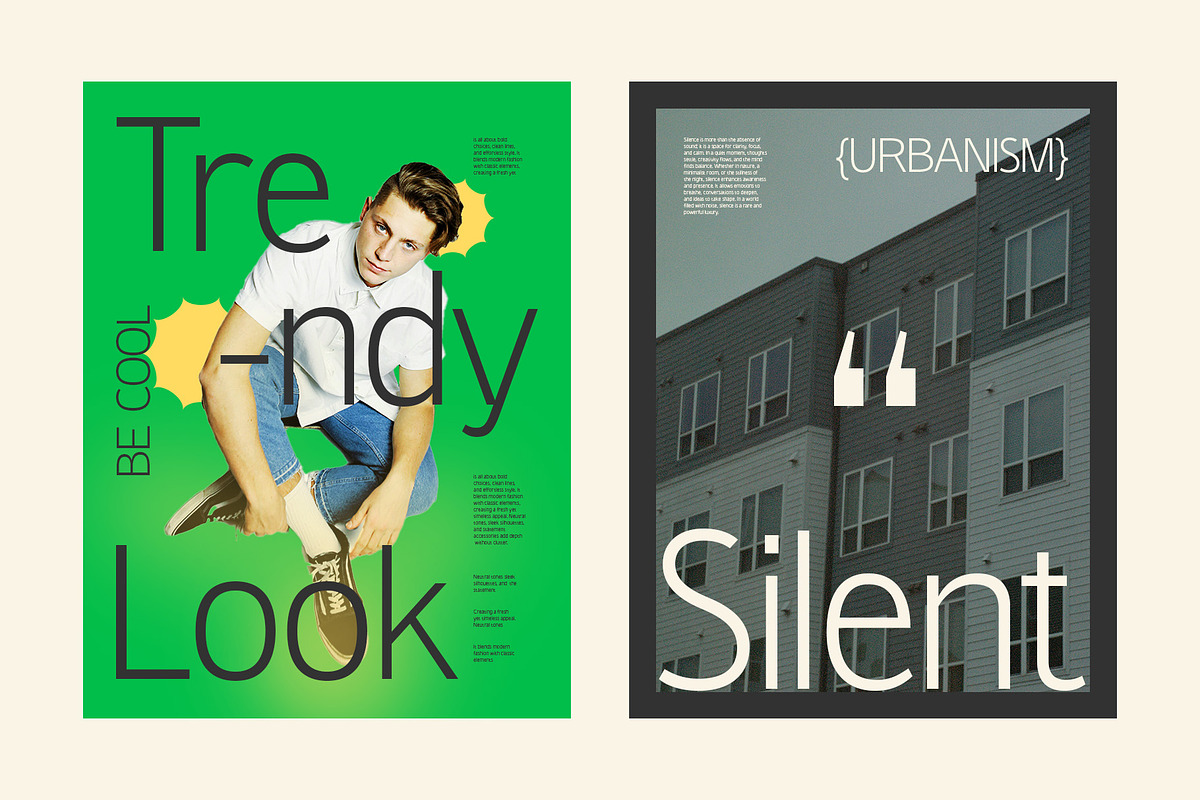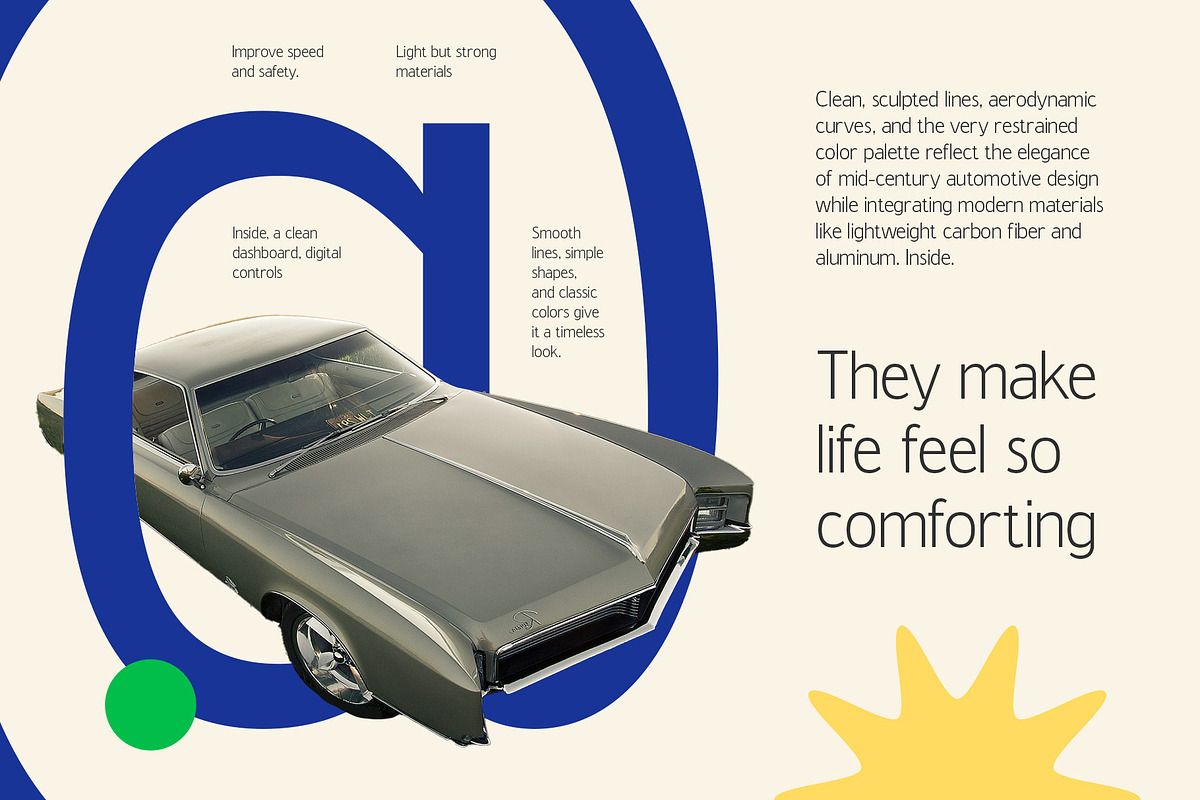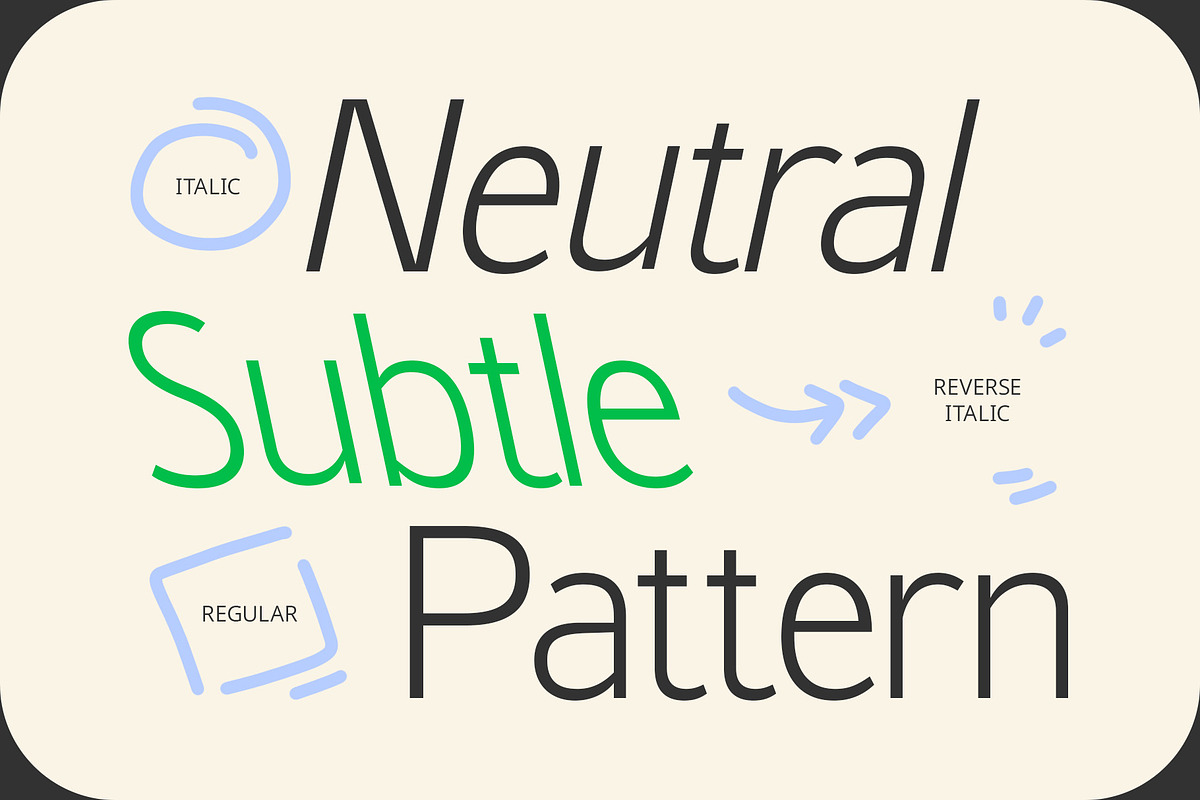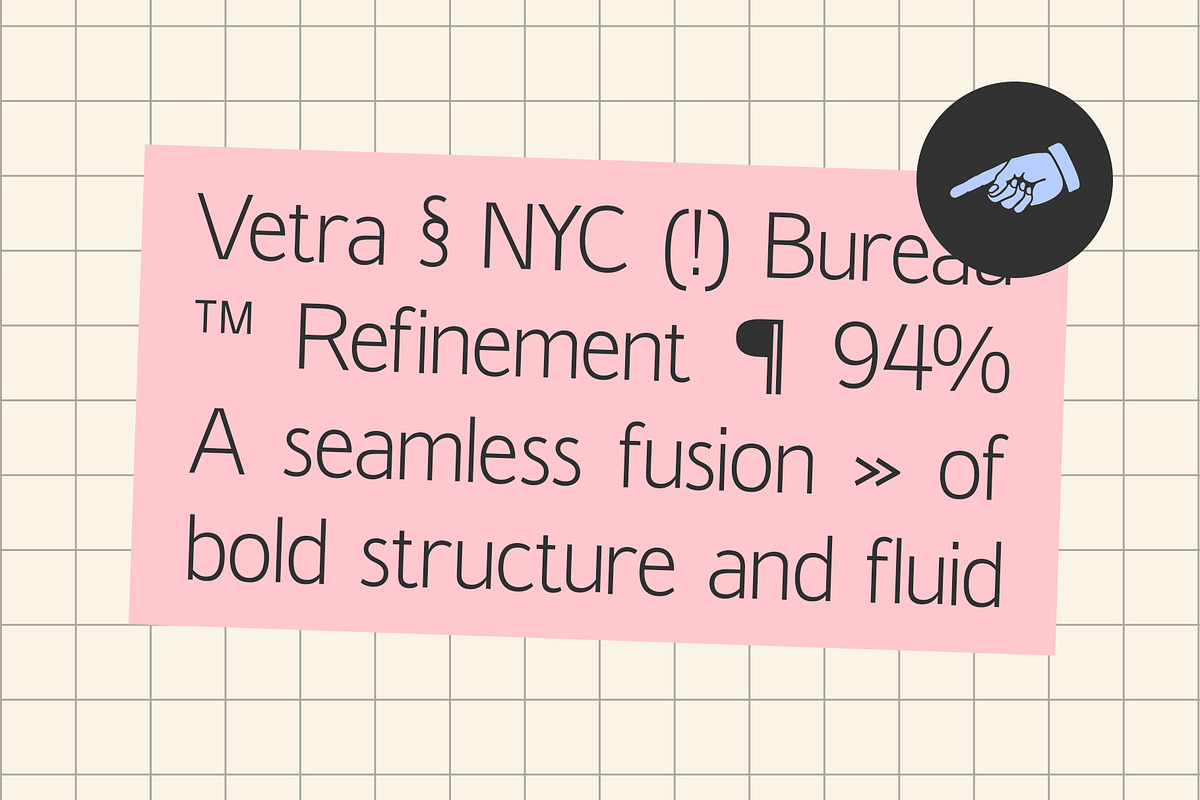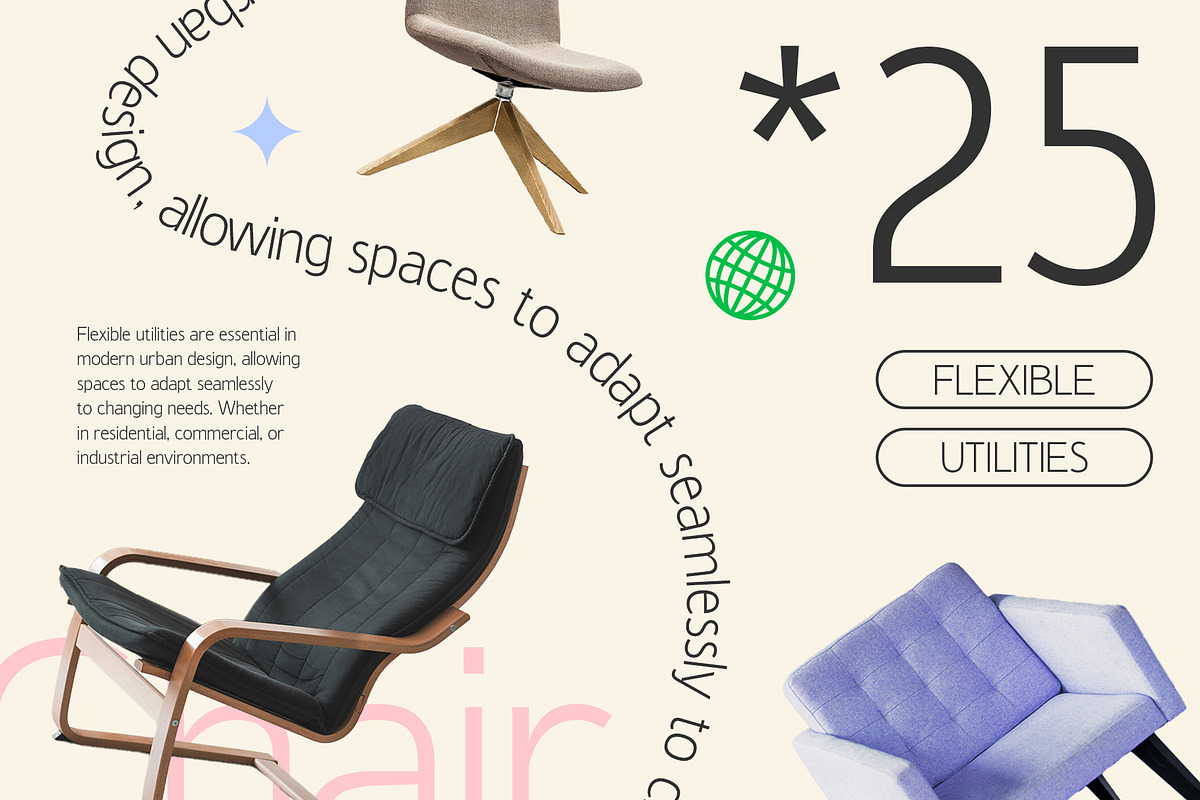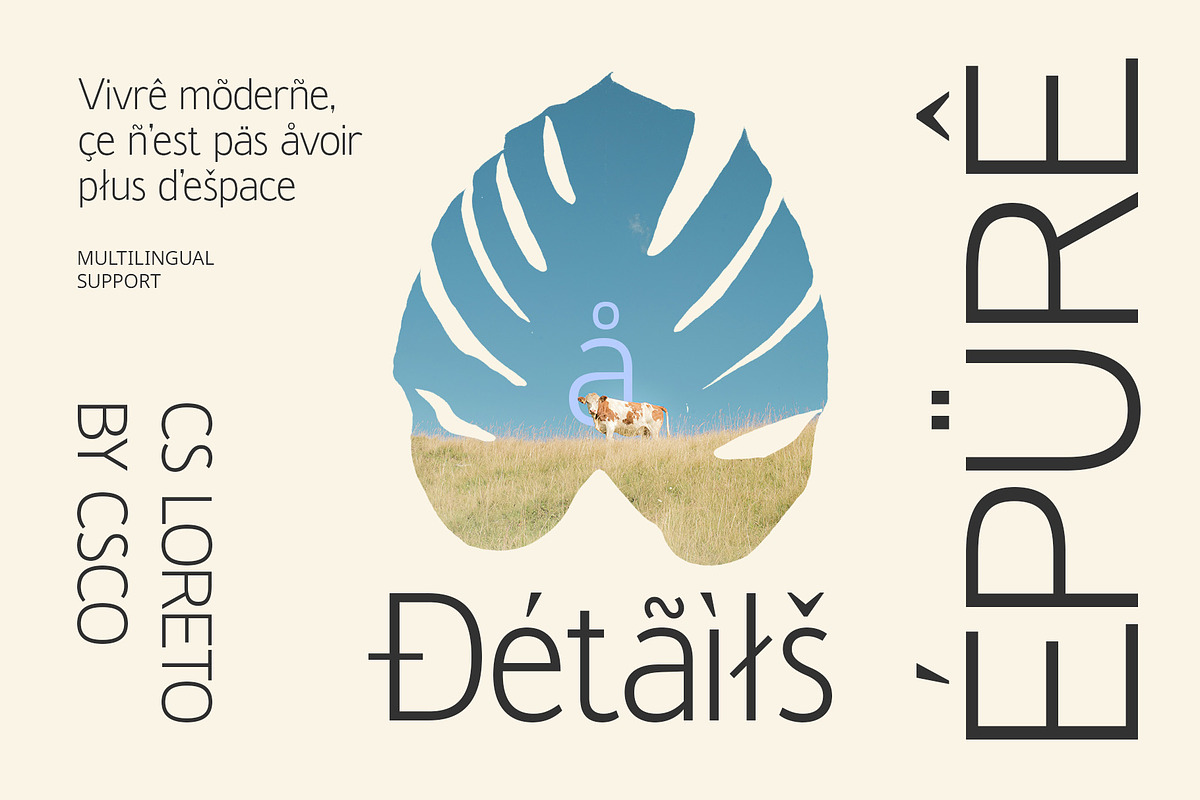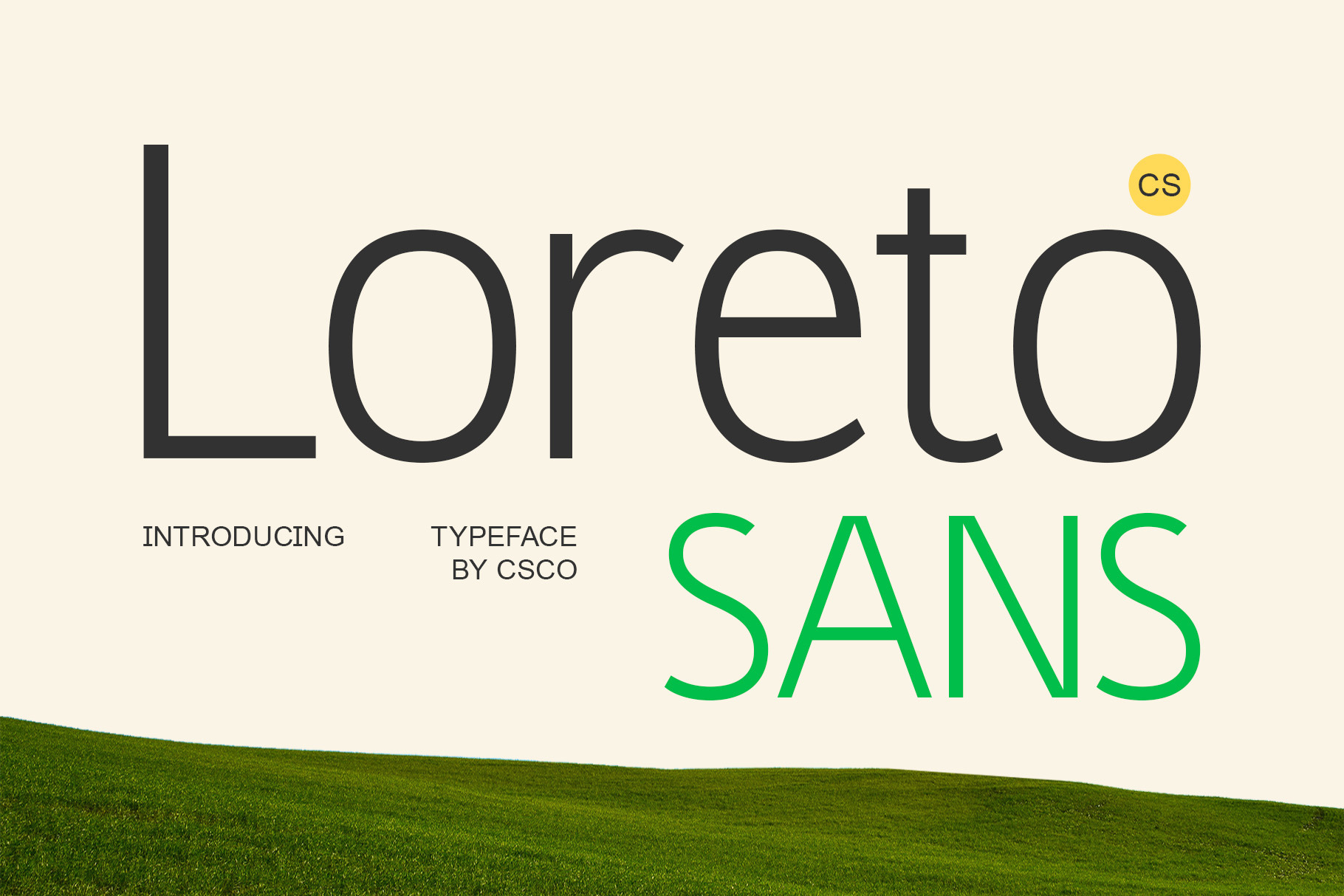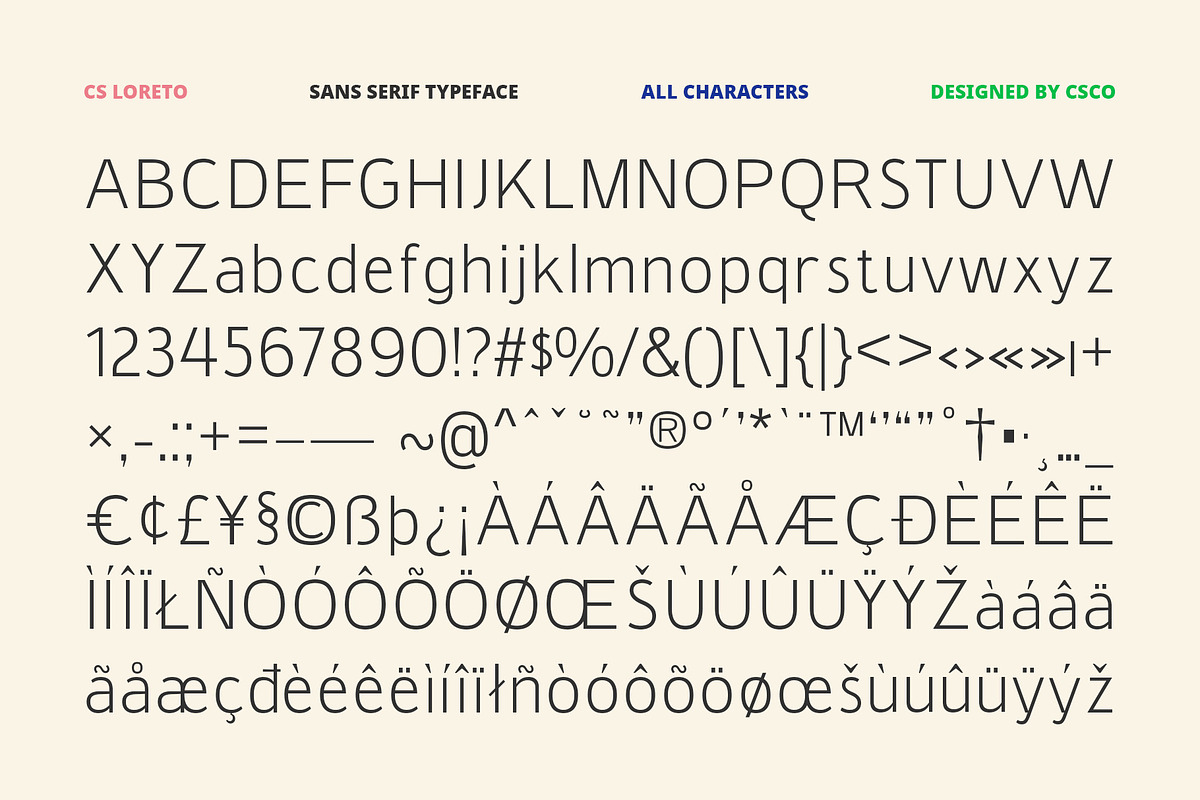
CS Loreto – Contemporary Font
CS Loreto – Contemporary Font: Precision Meets Character
Modern Sans-Serif with Geometric and Grotesque Forms CS Loreto is a modern sans-serif font that seamlessly blends geometric precision with grotesque character. Designed for clarity and impact, it balances clean lines with subtle detailing, making it ideal for contemporary and professional applications. Whether used in digital interfaces or print media, its structured form enhances both functionality and style.
Balanced Proportions for Versatile Use With contemporary proportions and a well-structured appearance, CS Loreto adapts effortlessly to various design needs. It is crafted to provide a seamless reading experience, ensuring legibility in both large headlines and smaller body text. Its versatility makes it perfect for branding, editorial layouts, marketing materials, and web design.
Bold and Readable for Effective Communication CS Loreto’s bold yet refined shape ensures optimal readability across different formats and screen sizes. The combination of geometric accuracy and grotesque warmth makes it suitable for strong, confident messaging. Whether for logos, advertising, or UI/UX design, it delivers a modern and engaging visual impact.
Perfect for Modern Branding and Digital Interfaces CS Loreto’s sleek and contemporary aesthetic makes it a top choice for brands seeking a modern identity. Its clean-cut forms and adaptable structure ensure a polished look across print, web, and mobile platforms.